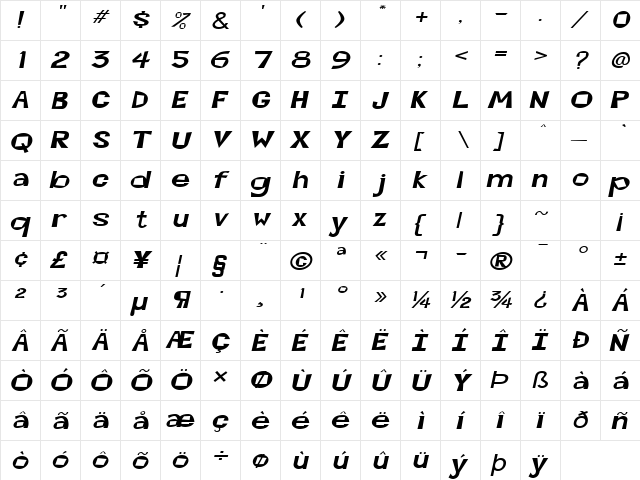
MagooExtended Italic
Design Context for MagooExtended Typeface
MagooExtended is a composed and adaptable typeface that performs quietly and consistently across a wide range of design contexts. The slanted form adds forward momentum and visual energy.
Pro Tip: Try MagooExtended for annotation and caption copy alongside an upright companion — the contrast in angle creates a dynamic but ordered typographic system.